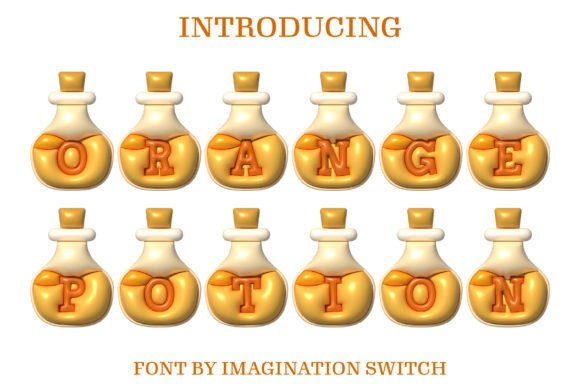
Dive into the Realm of Creative Expression with the Orange Potion Inflated Font: A Visual Symphony for Designers and Storytellers
In a world saturated with monotony, the Orange Potion Inflated font stands as a beacon of innovation and artistic freedom. A display font crafted by the visionary minds at Imagination Switch, it transcends the boundaries of ordinary typography, taking you on a journey of visual exploration.
With its captivating 3D style, Orange Potion Inflated breathes life into your words, transforming them into tangible objects that leap off the page. Experience the thrill of watching your creations come alive, as each character dances with depth and dimension.
Unleash the Power of Color and Form: A Palette of Creative Possibilities
The Orange Potion Inflated font is not merely a collection of letters; it's a palette of creative possibilities. Its clever use of color adds a layer of vibrancy and energy to your designs, capturing the attention of your audience and leaving a lasting impression.
With each stroke of Orange Potion Inflated, you'll find yourself immersed in a symphony of visual delight. The font's unique design invites you to experiment with color combinations, creating eye-catching headlines, captivating logos, and spellbinding posters that resonate with your brand's identity.
Ignite Your Imagination: A Font for Unforgettable Storytelling
In the hands of a skilled designer, the Orange Potion Inflated font transforms into a storytelling tool of unparalleled power. Its captivating 3D style and vibrant color palette provide the perfect canvas for crafting narratives that captivate and inspire.
Whether you're creating posters for an upcoming event, designing brochures for a new product launch, or weaving tales through social media graphics, Orange Potion Inflated empowers you to connect with your audience on a deeper level. Its dynamic appearance breathes life into your words, drawing readers into your story and leaving them spellbound.
Embark on a Typographic Adventure: Discover the Limitless Potential of Orange Potion Inflated
With Orange Potion Inflated, the possibilities are endless. Its versatility extends across a wide range of design projects, making it the perfect choice for designers, marketers, and creative professionals alike.
From eye-catching posters that demand attention to social media graphics that spark engagement, Orange Potion Inflated elevates your designs to new heights. Experience the thrill of creating visuals that resonate with your audience, leaving an unforgettable mark on their minds.